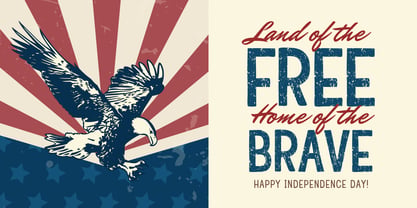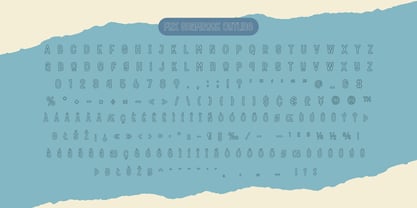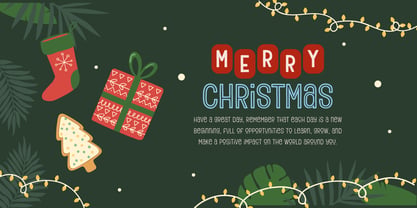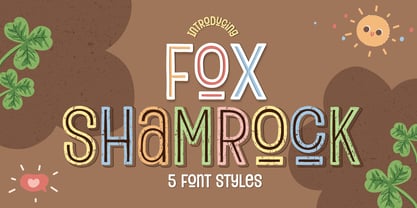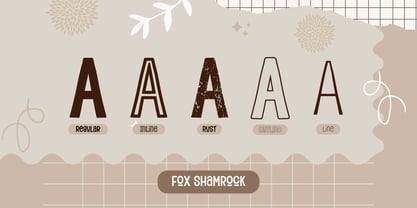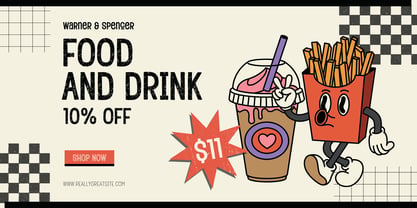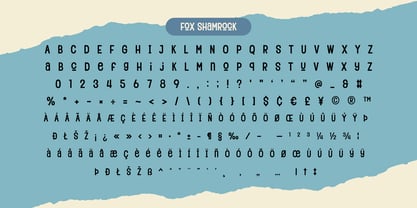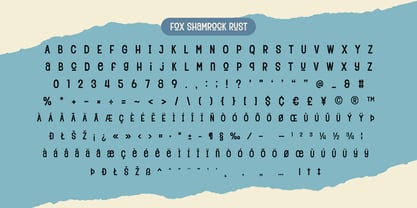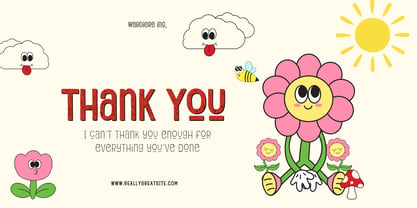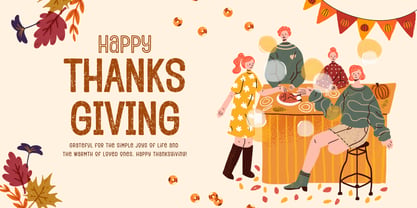
Fox Shamrock
by Fox7
The Fox Shamrock Font Family was designed by Rattana Rattanawan and published by Fox7. Fox Shamrock contains 5 styles and family package options. More about this family
Fox Shamrock is a cute and versatile typeface collection featuring five distinct styles—Regular, Rust, Inline, Line, and Outline. Designed to meet a wide range of creative needs, this font is perfect for projects like logos, posters, packaging, or web design. Fox Shamrock blends flexibility with personality, making it an ideal choice to enhance your designs and bring them to life.
Designers: Rattana Rattanawan
Foundry: Fox7